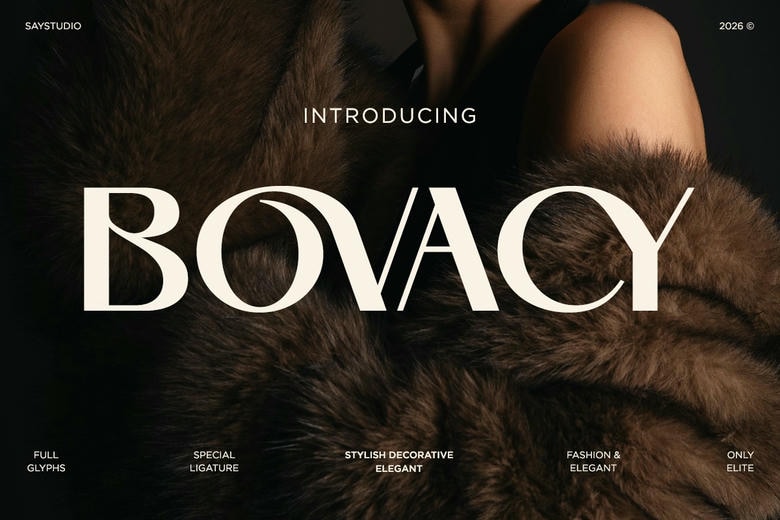
Bovacy Font
Bovacy is a new serif typeface designed with modern times and looks with elegance, confidence, and luxury. Inspired by today’s fashion editorials and high-end branding, Bovacy combines sophisticated curves and bold contrasts to form letterforms that are exclusive, stylish, and timeless. Every character is created to stand out and retain a clean and graceful presence.
With its stylish decorative details and special ligatures, Bovacy brings a sophisticated tone to the headlines, logos, and magazines, beauty branding, and luxury packaging. The combination of classic serif and sophisticated elegance is highly versatile for both bold display use and elegant editorial compositions.
Designed for designers who expect exclusivity, Bovacy provides power in visual identity with a beautiful, fashion-forward appearance. Whether for high-end branding, elegant typography systems and standout visual campaigns, Bovacy brings a level of luxury appeal to every design.